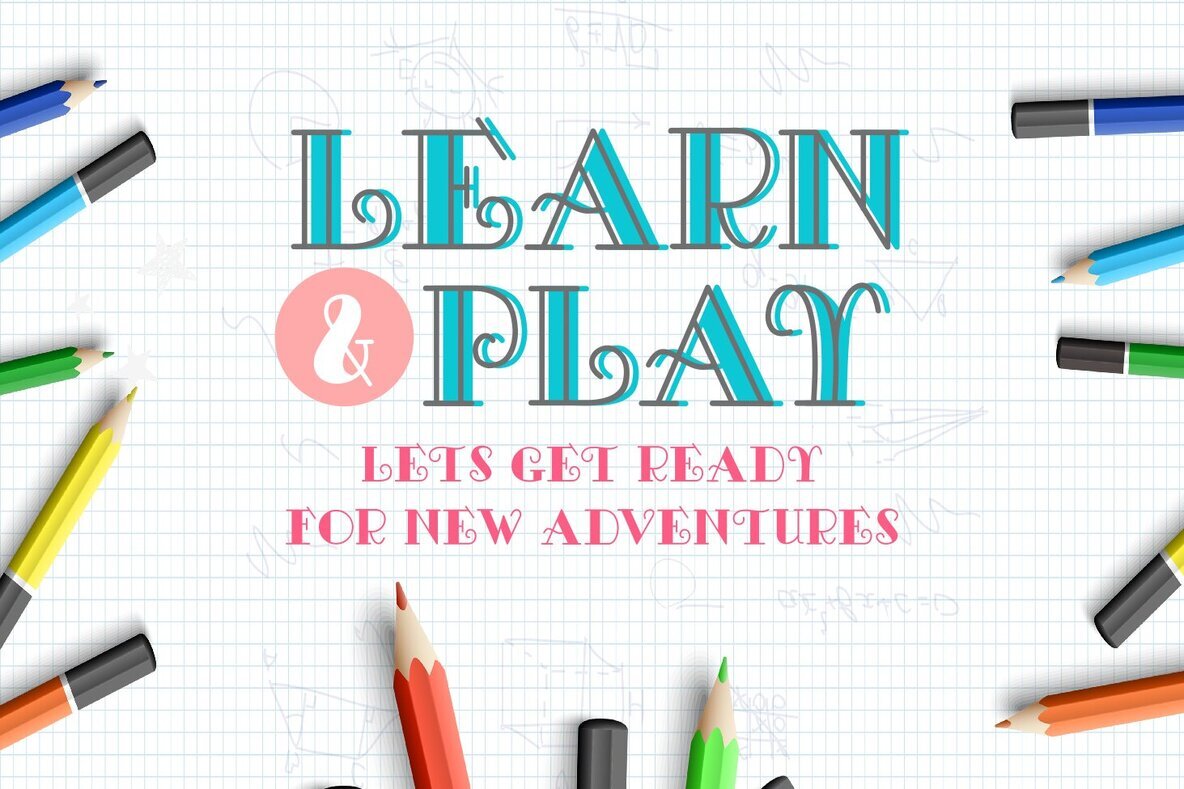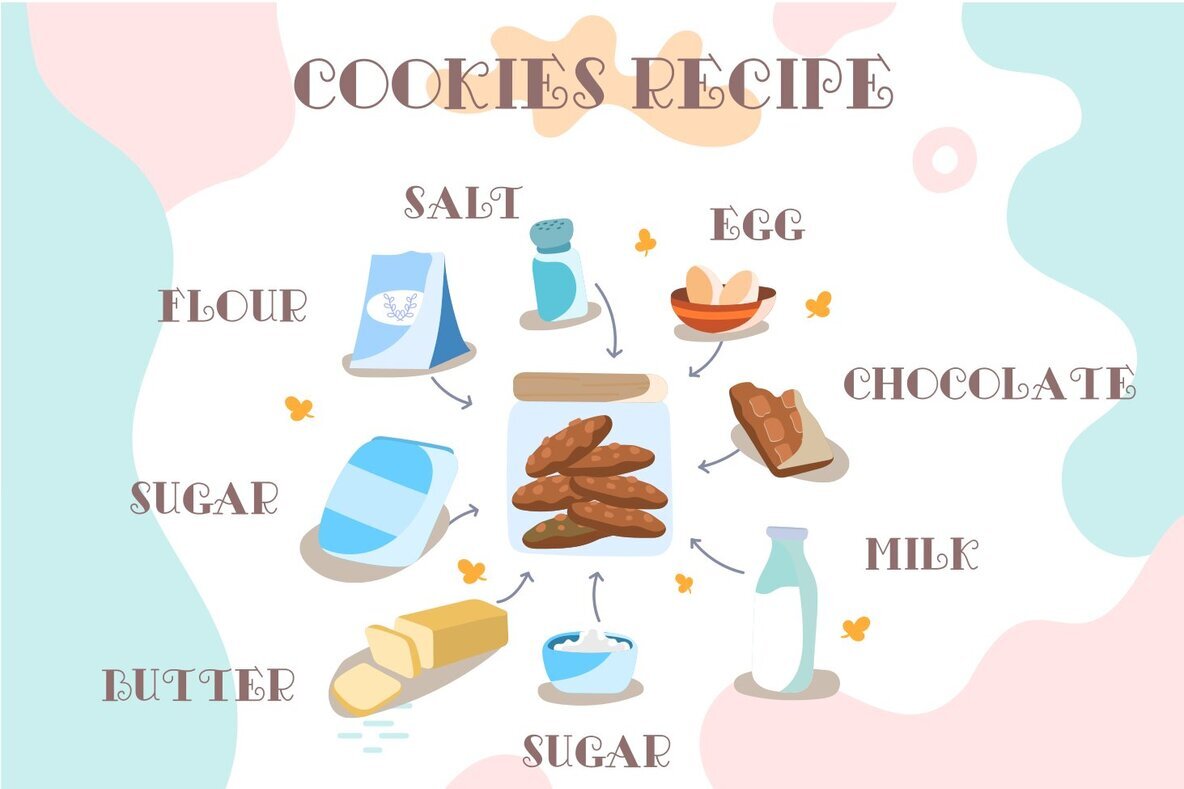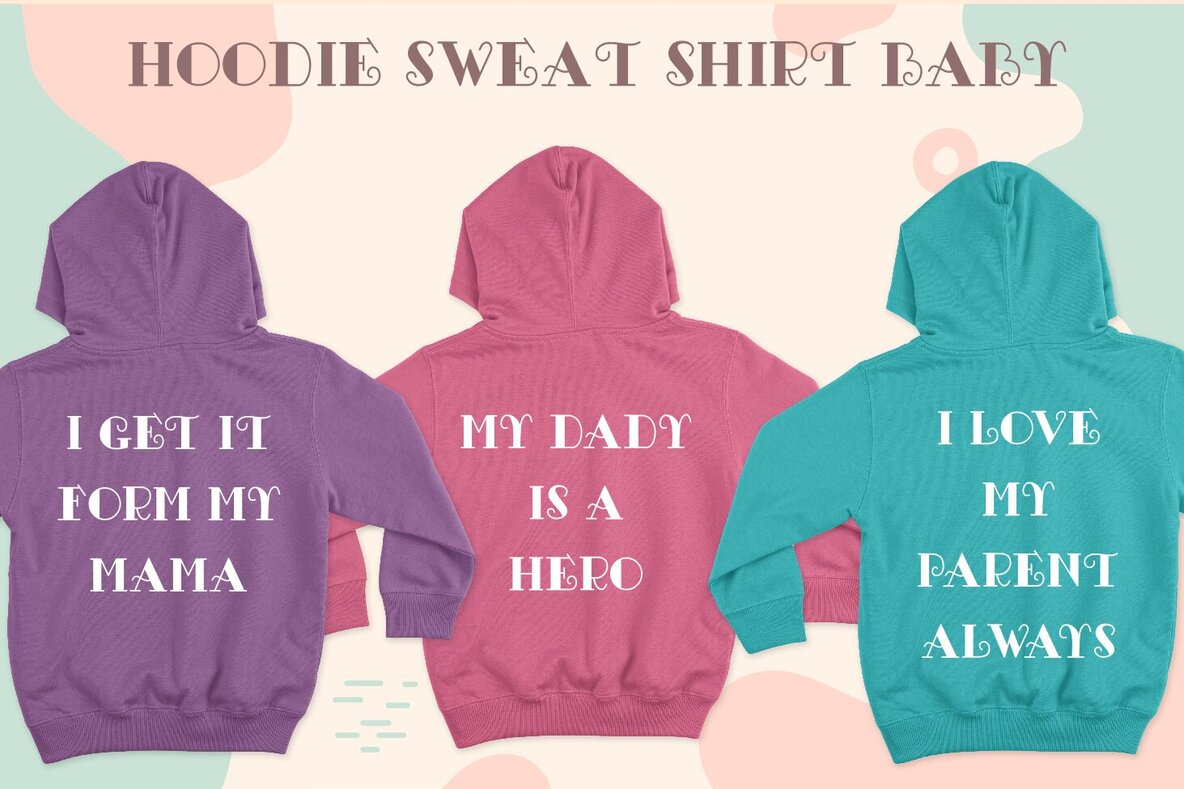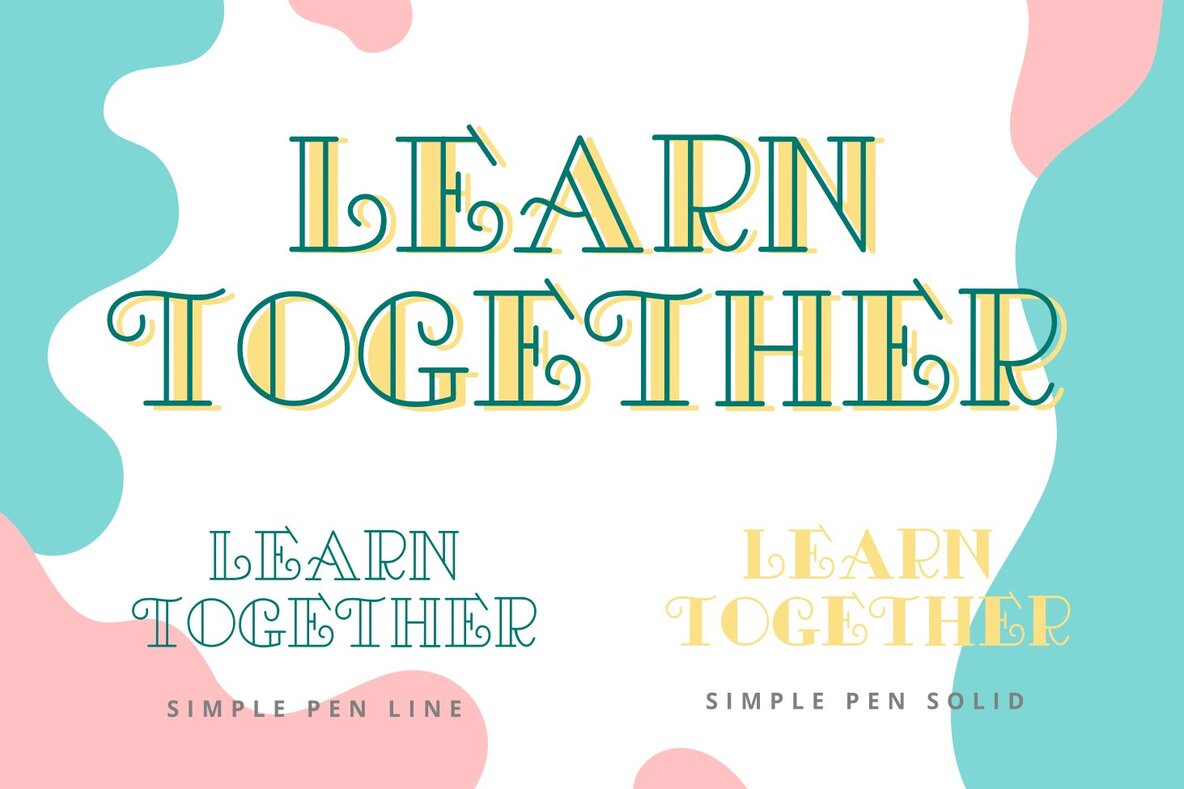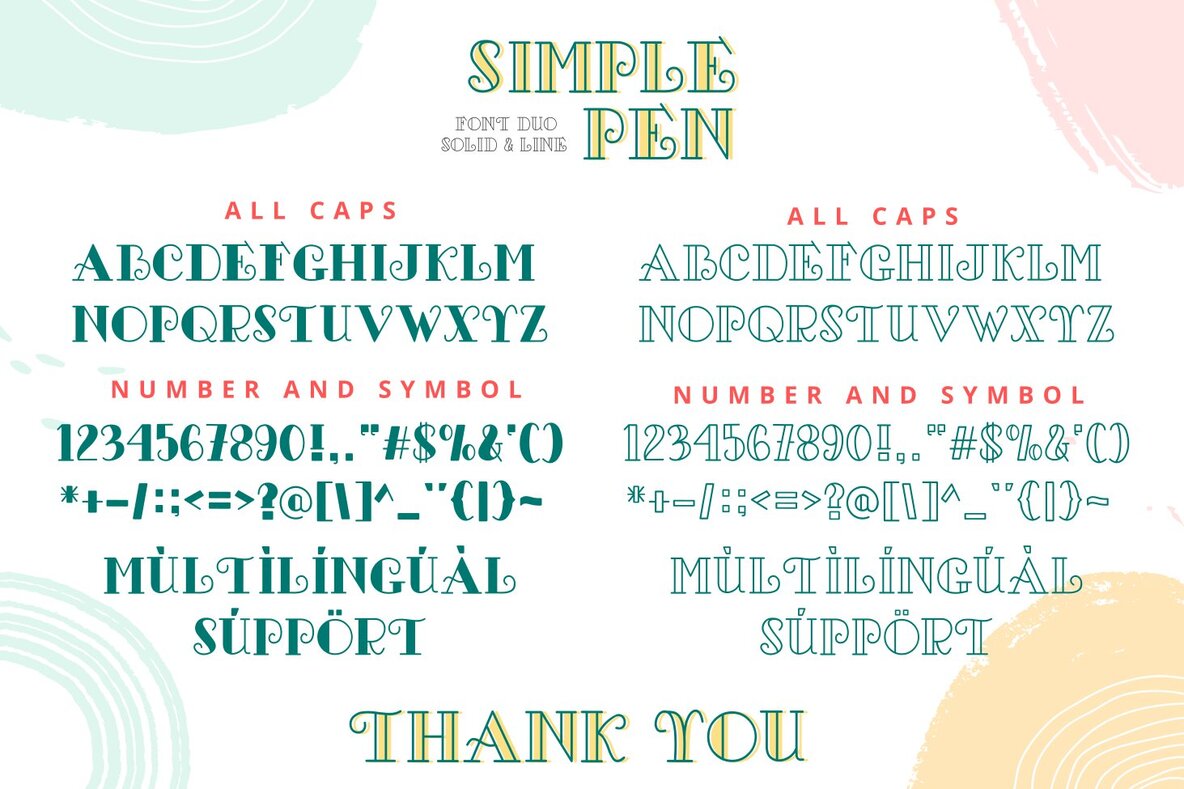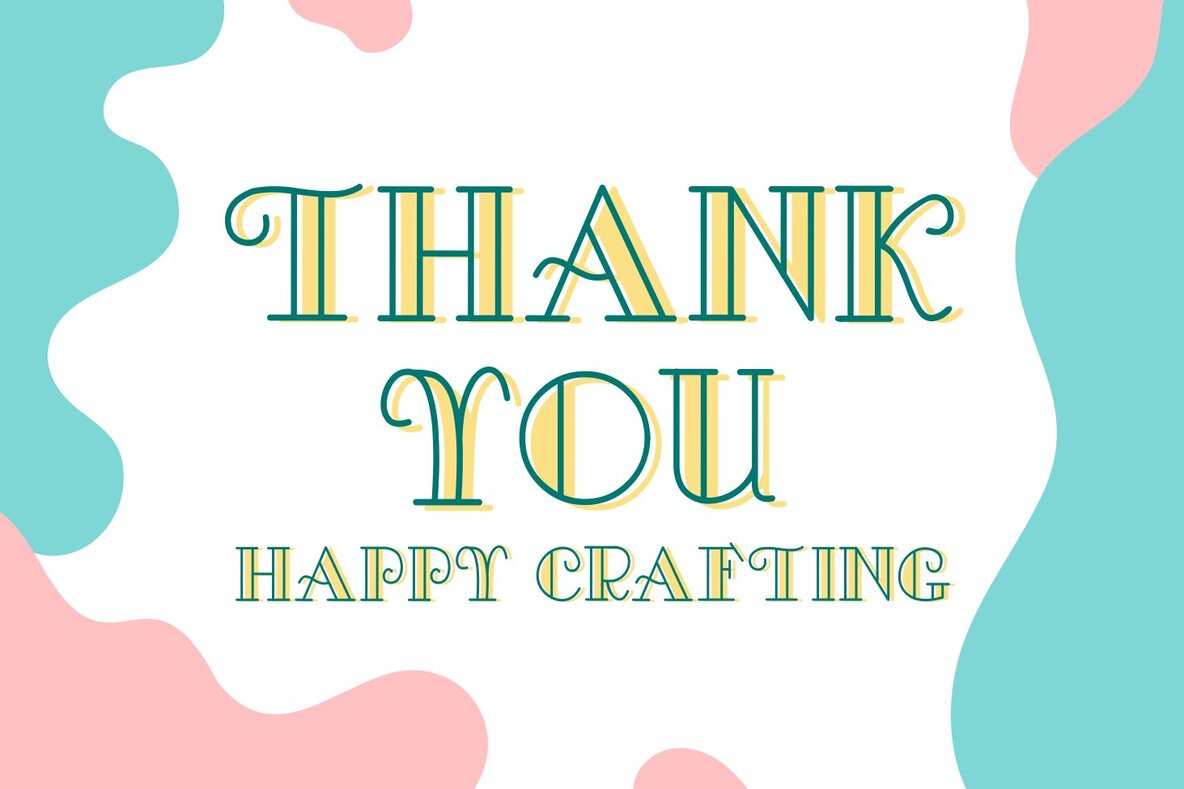
Simple Pen Font
Simple Pen by Zeenesia Studio offers a charming and versatile duo of serif fonts. With Solid and Line styles, this font adds a touch of class to designs, making it perfect for crafting, children's posters, promotional materials, cartoons, comics, and more. We hope you enjoy using Simple Pen. Feel free to share your feedback with us. Thank you for choosing Simple Pen!Simple Pen: A Quirky Serif Font Duo